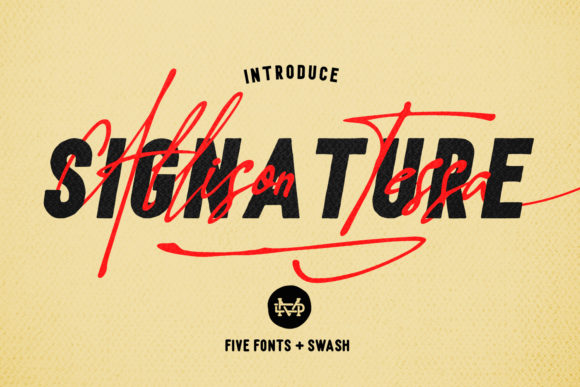
Unleash the Allure of Allison Tessa: An Exquisite Duo Font for Every Occasion
Prepare to be captivated by Allison Tessa, a stunning duo font that seamlessly blends the elegance of a script font with the modern charm of a sans serif. Designed with impeccable attention to detail, Allison Tessa is the epitome of versatility, effortlessly adapting to a myriad of creative projects.
With its delicate strokes and whimsical flourishes, the script font exudes an air of sophistication, while the sans serif counterpart provides a sturdy foundation, ensuring readability and clarity. Together, they form a harmonious symphony of visual appeal, perfect for adding a touch of charm and personality to your designs.
Whether you're crafting heartfelt wedding invitations, designing eye-catching posters, or creating captivating book covers, Allison Tessa has the power to transform your vision into a breathtaking reality. Its versatility knows no bounds, extending to merchandise, fashion campaigns, newsletters, branding, advertising, and even heartwarming greeting cards.
Immerse yourself in the boundless possibilities of Allison Tessa and let your creativity soar. Its three distinct styles—regular, rough, and stamp—offer a spectrum of options to suit your unique aesthetic.
Experience the regular style's timeless grace, the rough style's edgy charm, or the stamp style's vintage allure. Each style stands alone as a masterpiece, but when combined, they create a symphony of visual delight that will leave your audience spellbound.
Allison Tessa is more than just a font; it's an invitation to express your individuality, to make a statement, and to create designs that resonate with your audience on a profound level. Its effortless elegance will captivate hearts, while its versatility will empower you to explore uncharted creative territories.